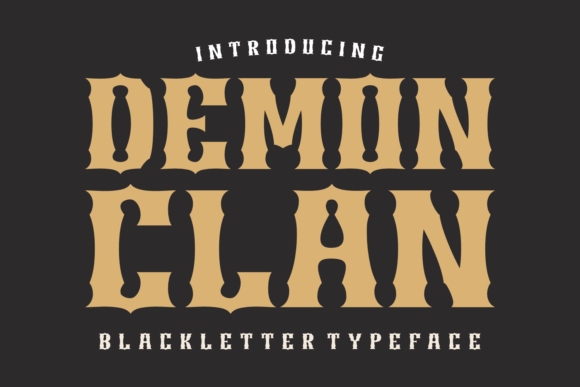
The Dark Allure of Typography: Unveiling the Demon Clan Font
As a designer, have you ever stumbled upon an old, dusty book in a forgotten corner of a library, only to be captivated by the mysterious letters that danced across its pages? For many of us, that moment sparks a creative journey, one that leads us to the world of typography. It’s in these moments that we discover fonts like the Demon Clan Font, a retro blackletter typeface that exudes an air of mystery and danger.
Perfect for fantasy genres, horror themes, or any project that requires an element of the unknown, the Demon Clan Font is a valuable addition to any designer’s toolkit. Its vintage blackletter style not only evokes a sense of the past but also maintains a timeless appeal, making it a versatile choice for a wide range of creative projects.
With its dark, mysterious quality, the Demon Clan Font is sure to add an extra layer of depth to your designs, making it a must-have for designers who crave a touch of the unknown.
Demon Clan Font Key Features
- Font Family: A unique, fantasy-inspired font family designed for various applications.
- Character Set: Includes a wide range of characters, including letters, numbers, and special symbols, making it suitable for various applications, including games, fantasy stories, and more.
- Unique Characteristics: Features a distinctive, gothic-inspired design with intricate details and ornaments, making it ideal for adding a touch of fantasy and mysticism to your work.
Demon Clan Font Review
Overall, I was really excited to dive into the Demon Clan Font, but I have mixed feelings about its performance.
- The font has a unique, gothic-inspired aesthetic that’s sure to grab attention.
- The font is quite legible, even at smaller sizes, making it suitable for a variety of applications.
- The font may not be suitable for all types of content, particularly those that require a more traditional or formal tone.
- The font’s bold and italic styles can sometimes appear inconsistent or rough around the edges.
The Demon Clan Font is perfect for horror-themed designs, gothic-inspired artwork, and dark fantasy illustrations. It’s also great for adding a touch of drama and mystery to your designs.